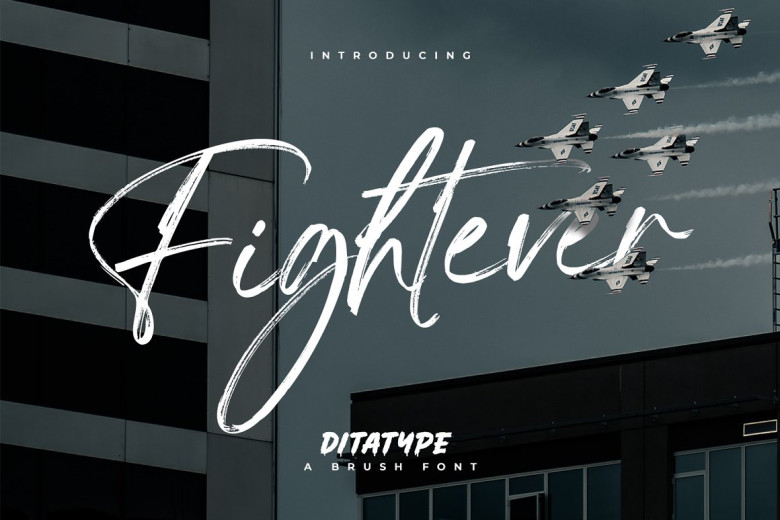
Fightever Font
Fightever is a bold script font designed to capture the power and intensity of an initial stroke. Thanks to its interlinked letters and dynamic design, this typeface conveys movement and energy within designs. Fightever stands out with its connected brush style, where each letter flows seamlessly into one another, creating a sense of fluidity similar to that experienced when painting across surfaces.
Fightever is an expressive art style that feels organic and natural; every letter creates an eye-catching composition. Fightever embodies passion and energy through every brush stroke it uses; every word seems to vibrate with vibrant brush strokes. This vibrant style adds individuality and individuality to your artwork. You will appreciate all its distinctive features!
Fightever Brush Font